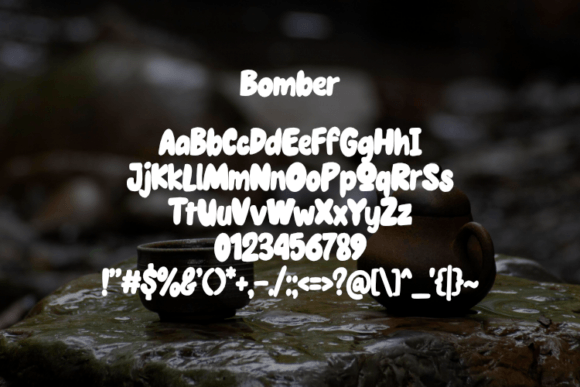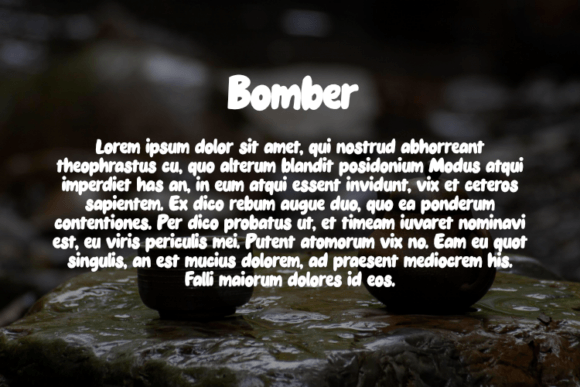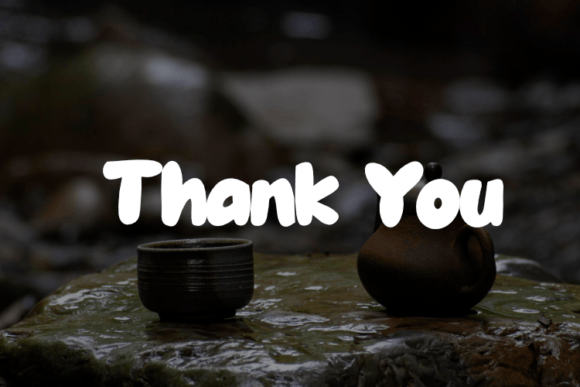
Unleashing Creativity with Bomber Font: The Ultimate Design Game-Changer
In the realm of design, fonts play a pivotal role in bringing creativity to life. Among the myriad of fonts available, one that stands out for its exceptional versatility and style is the Bomber Font. Crafted meticulously for fashion-oriented designs, Bomber has emerged as a go-to choice for designers and crafters looking to infuse their projects with a unique typographic experience. Whether you’re working on clothing designs, t-shirt graphics, or a plethora of product designs, Bomber is engineered to elevate your creations to new heights.
The Birth of Versatility: Designed for Adaptability
Bomber Font is not just another addition to the vast sea of typefaces; it’s a groundbreaking design that redefines adaptability. Its creation was inspired by the need for a font that could seamlessly integrate into various design projects without compromising on style or functionality. From fashion labels to product branding, Bomber’s design ensures that your message is conveyed with clarity and impact, making it a perfect fit for any project that demands a typographic touch.
A Perfect Fusion of Style and Functionality
Bomber Font embodies the perfect blend of style and functionality, making it an indispensable tool in the designer’s arsenal. Its unique typographic characteristics are not just visually appealing but also highly legible across various applications. This balance is crucial in design, where aesthetics and readability are paramount. With Bomber, designers can push the boundaries of creativity while ensuring their message is delivered effectively.
Beyond Ordinary: Elevating Design to New Heights
What sets Bomber apart from other fonts is its ability to bring a sense of freshness and excitement to design. It’s not just a font; it’s a statement piece that can transform ordinary designs into something extraordinary. Whether you’re crafting a brand identity, designing merchandise, or working on editorial projects, Bomber injects a dose of personality and flair that can make your work stand out in a crowded marketplace.
Why Designers and Crafters Love Bomber Font
Designers and crafters worldwide have fallen in love with Bomber Font for its flexibility, style, and the creative freedom it offers. Here are a few reasons why Bomber has become a favorite:
- Versatility: Suitable for a wide range of projects from fashion to product design.
- Unique Style: Offers a distinctive look that can enhance brand identity and visual communication.
- Legibility: Ensures readability across different sizes and applications.
Bomber Font is more than just a typeface; it’s a design revolution that brings together style, functionality, and versatility in a way that’s hard to find elsewhere. For designers and crafters looking to leave a mark with their work, Bomber offers the tools to create something truly memorable. Whether you’re aiming to craft stunning fashion designs, impactful product labels, or any other visual project, Bomber Font stands ready to transform your creative vision into reality.